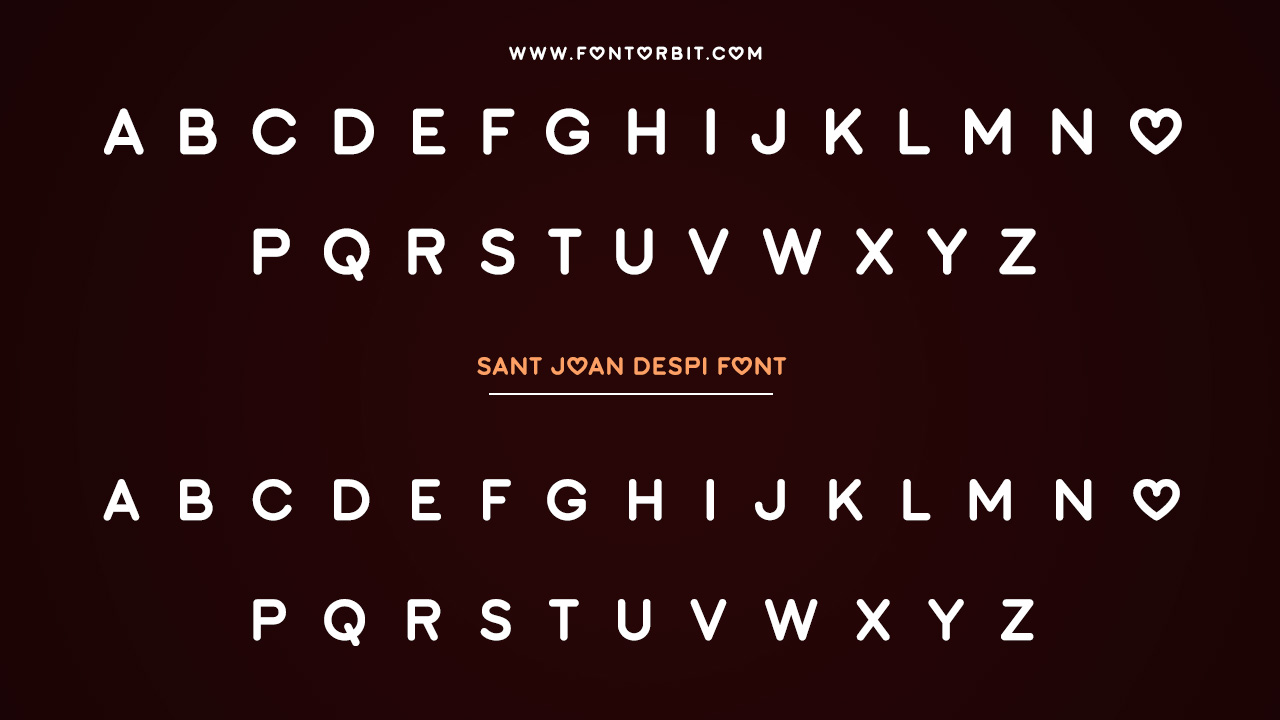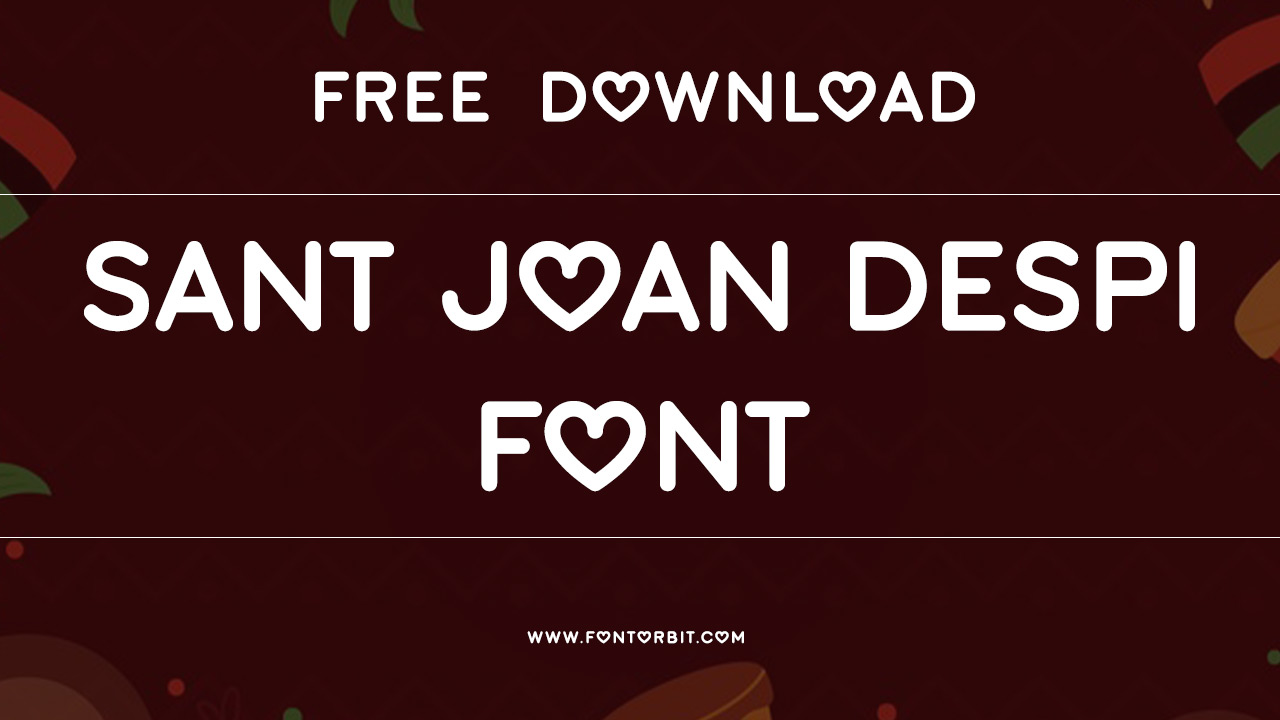
The Sant Joan Despi font, created by Forma Co. and digitalized by Joancarles Casasin, was originally designed for the Sant Joan Despi City Council’s Christmas campaign. It is an uppercase typeface with a unique feature: the letter “O” is represented as a heart symbol, giving it a distinctive festive feel.
This font offers playful, bold uppercase characters, ideal for special events and holiday-themed designs.
Notable Uses Of Sant Joan Despi
Originally commissioned for the Christmas campaign by Sant Joan Despi City Council, this font is most often associated with festive and holiday projects. It’s suitable for designs that need a joyful, creative touch, such as posters, banners, and logos.
Sant Joan Despi is perfect for projects requiring a playful yet bold font. It’s particularly useful for branding and marketing purposes where the heart-shaped “O” adds a personal, festive touch.
Sant Joan Despi is a fun and creative typeface with a distinctive, festive feel. While its use is restricted to personal projects unless a license is purchased, its heart-shaped “O” and bold uppercase letters make it a unique choice for various cheerful, celebratory designs.
1.What Makes This Font Special?
Its uppercase design and heart-shaped “O” make it unique.
3.Can I Use The Font In Holiday Campaigns?
Absolutely, it’s perfect for festive and celebratory designs.
5.Is This Font Suitable For Logos?
Yes, it’s particularly effective for branding and logos.
6.Does This Font Support Lowercase Characters?
No, it’s primarily an uppercase font.